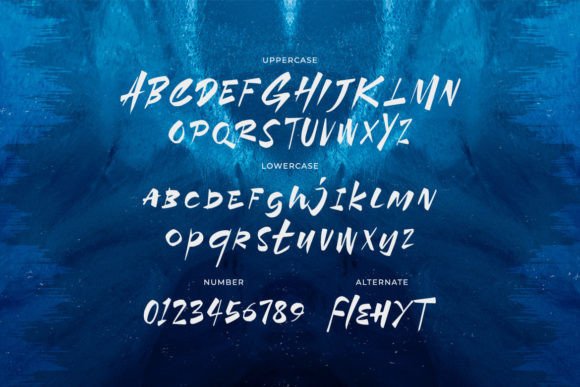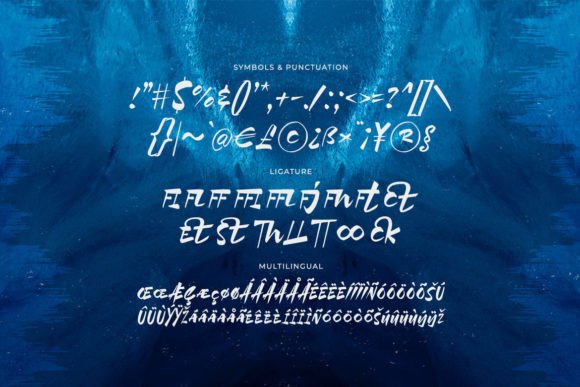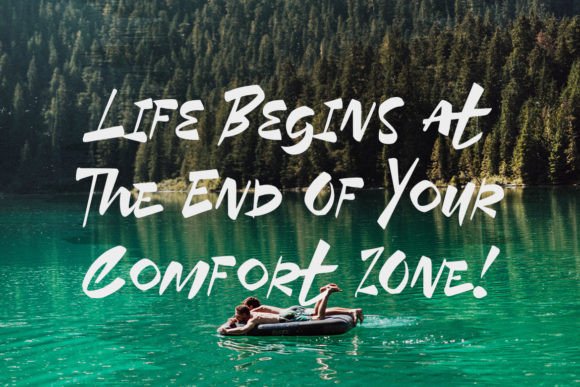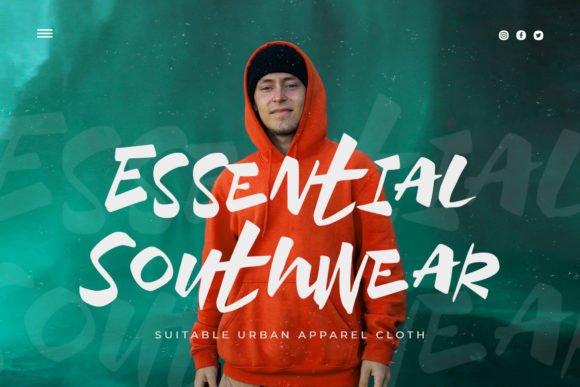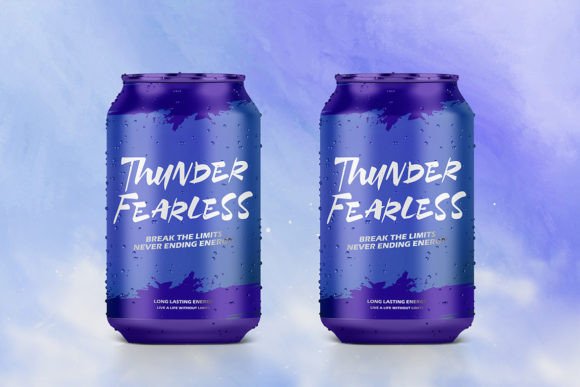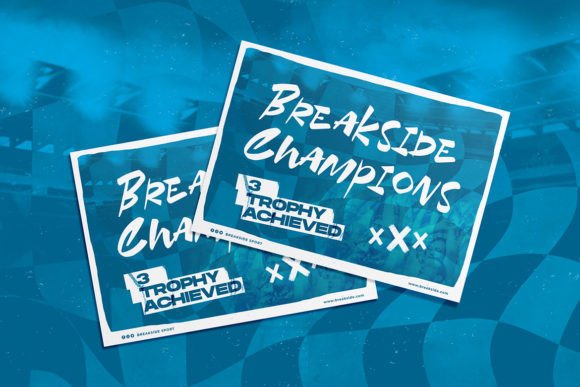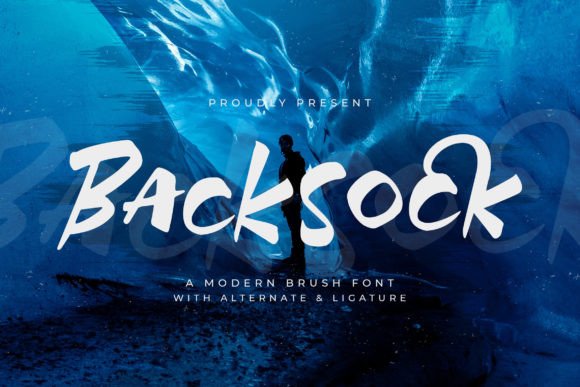
Introducing Backsock Font: The Modern Brush Font for Creative Designs
In the world of typography, fonts play a crucial role in bringing a design to life. With the right font, you can add personality, tone, and style to your project. If you’re looking for a modern brush font that can add a unique and contemporary flair to your designs, look no further than Backsock Font. In this article, we’ll explore the features and benefits of Backsock, and why it’s the perfect choice for designers and crafters.
What is Backsock Font?
Backsock is a modern brush font that features an expressive and playful brushstroke style. This font is perfect for projects that require a personal touch, and its versatility makes it suitable for a wide range of applications. Whether you’re working on branding, social media graphics, packaging, posters, or more, Backsock is the ideal choice.
Key Features of Backsock Font
- Expressive Brushstroke Style: Backsock features a unique and dynamic brushstroke style that adds a personal touch to your designs.
- Modern and Informal: This font has a fresh and approachable feel, making it perfect for designs that need to feel contemporary and relaxed.
- Versatile: Backsock can be used for a variety of projects, from branding and social media graphics to packaging and posters.
- Easy to Read: Despite its playful style, Backsock is easy to read, making it suitable for body text and headlines.
Benefits of Using Backsock Font
So, why choose Backsock Font for your next project? Here are just a few benefits of using this modern brush font:
- Adds Personality to Your Design: Backsock’s expressive brushstroke style adds a personal touch to your designs, making them stand out from the crowd.
- Perfect for Creative Projects: This font is ideal for creative projects that require a unique and contemporary flair, such as branding, social media graphics, and packaging.
- High-Quality: This font is designed to high-quality standards, ensuring that it looks great in any design.
How to Use Backsock Font in Your Designs
Using Backsock Font in your designs is easy. Here are a few tips to get you started:
- Pair it with Other Fonts: Backsock pairs well with other fonts, such as sans-serif fonts like Arial or Helvetica.
- Use it for Headlines and Titles: This font is perfect for headlines and titles, where its expressive brushstroke style can really shine.
- Experiment with Colors: Backsock looks great in a variety of colors, so don’t be afraid to experiment and find the perfect hue for your design.
In conclusion, Backsock Font is a modern brush font that brings a unique and contemporary flair to any design. Its expressive and playful brushstroke style makes it perfect for projects that require a personal touch, and its versatility makes it suitable for a wide range of applications. Whether you’re a designer or crafter, Backsock is the ideal choice for adding personality and style to your designs.